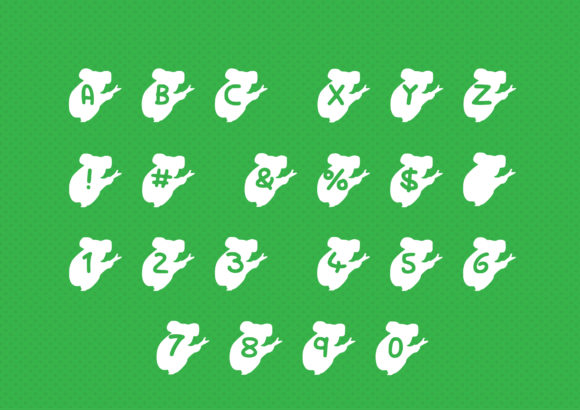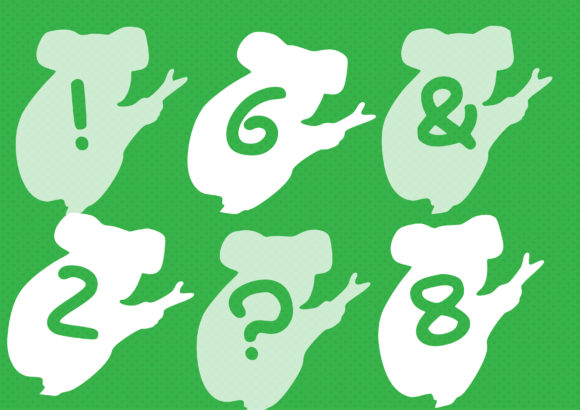
Introduction to Play Koala Bear Font
Have you ever stared at a blank design canvas, feeling the pressure to create something truly special? The cursor blinks, and your mind starts racing with ideas, but nothing seems to stick. That’s when you stumble upon the perfect design resource – a font that speaks to your creativity and adds a touch of whimsy to your project. For designers looking to bring a smile to their audience’s faces, the Play Koala Bear Font is an absolute treasure trove.
Imagine being able to fill your designs with adorable letters nestled inside koala bears, transporting your viewers to a world of pure imagination. With its high-quality, free download, and transparent background, this font is the ultimate design companion for any creative project.
Key Features of Play Koala Bear Font
- High-quality design resource suitable for various creative projects, including children’s books, educational materials, and more.
- Features a transparent background, allowing for easy customization and versatility in design applications.
- Designed with a playful and endearing style, the Play Koala Bear Font is perfect for adding a touch of whimsy to your design projects.
- Includes uppercase and lowercase letters, as well as numbers and punctuation marks, making it a comprehensive font for creative use.
- Available in a single size, with a resolution of 1024 x 1024 pixels, ensuring crisp and clear typography in various design applications.
Honest Review: Play Koala Bear Font
I recently stumbled upon the Play Koala Bear Font, a design resource that caught my attention due to its unique and playful style. The font features a transparent background, making it perfect for creative projects where you want the text to blend seamlessly with the background.
- ✨ Unique and playful style that adds a fun touch to any design project
- ✨ High-quality design that is perfect for creative projects
However, I do have a few minor complaints about the font. The only limitations I’ve found are:
- ⚠️ Limited character set, which may not be suitable for longer texts
- ⚠️ Not ideal for formal or professional designs, as it may come across as too playful
Overall, I’m impressed with the Play Koala Bear Font and its potential to add a fun and creative touch to any design project. While it may have some limitations, it’s a great resource for designers looking for a unique and high-quality design element.
The Play Koala Bear Font is a versatile design resource that can be used for a variety of creative projects, including: